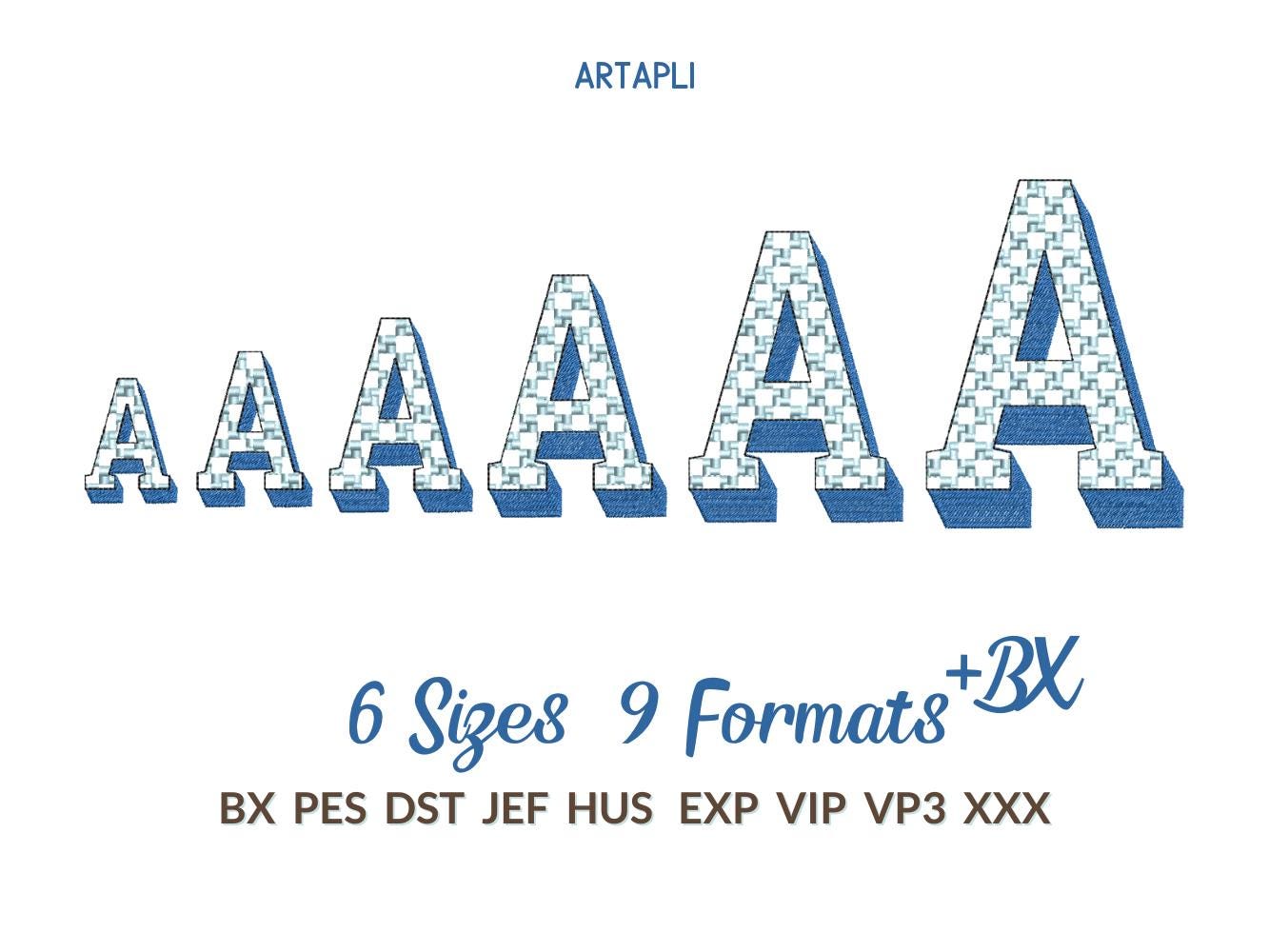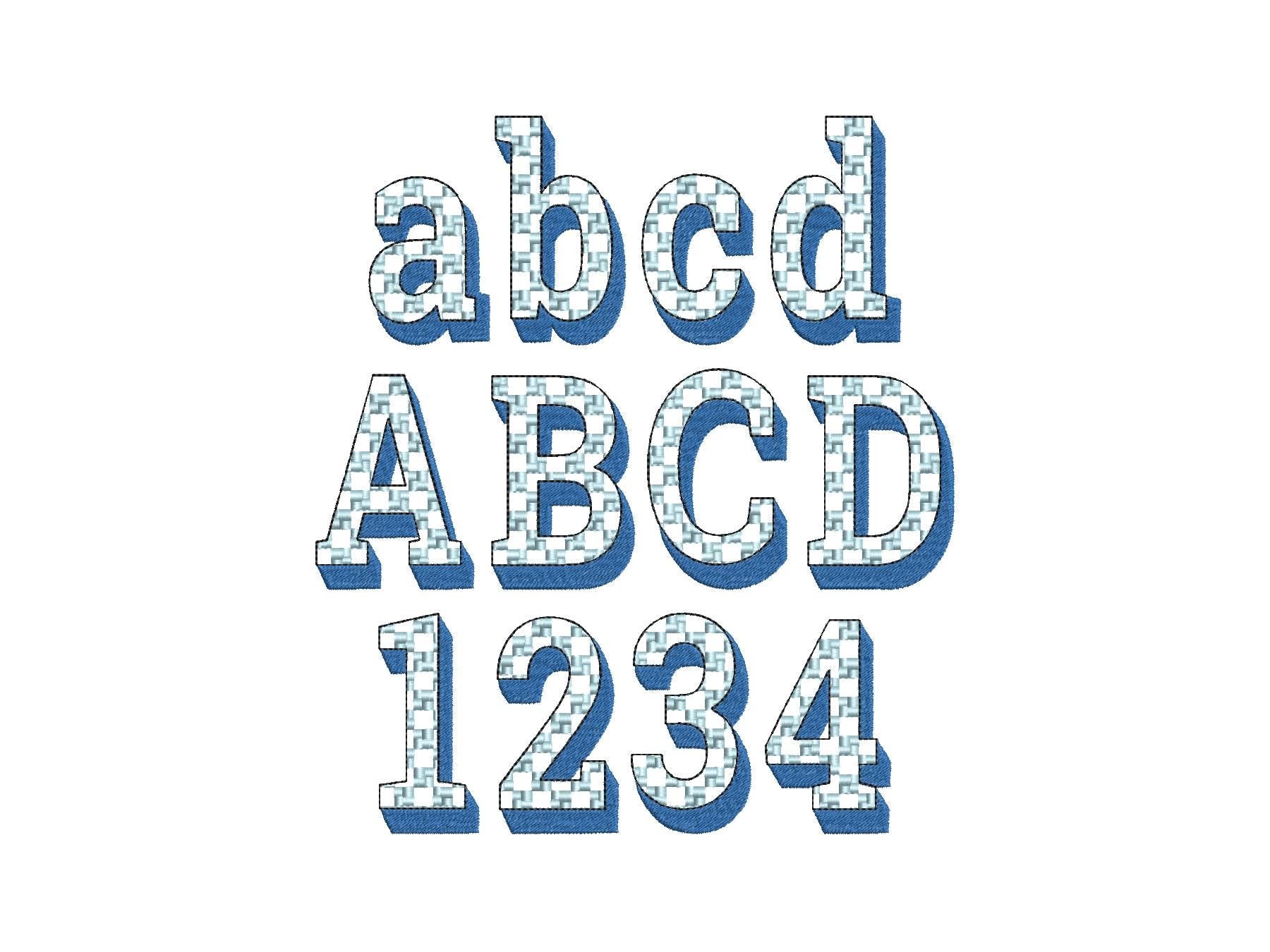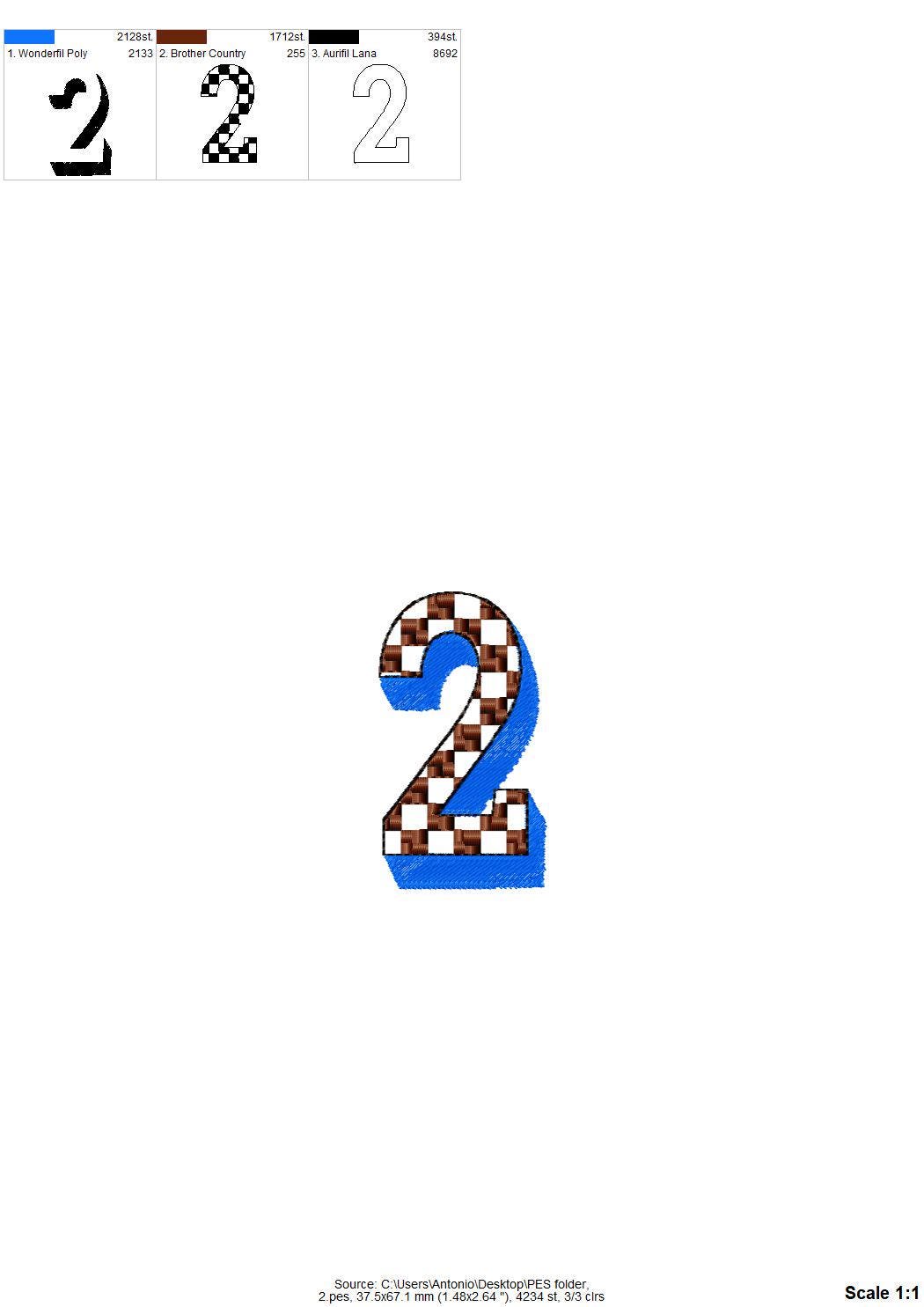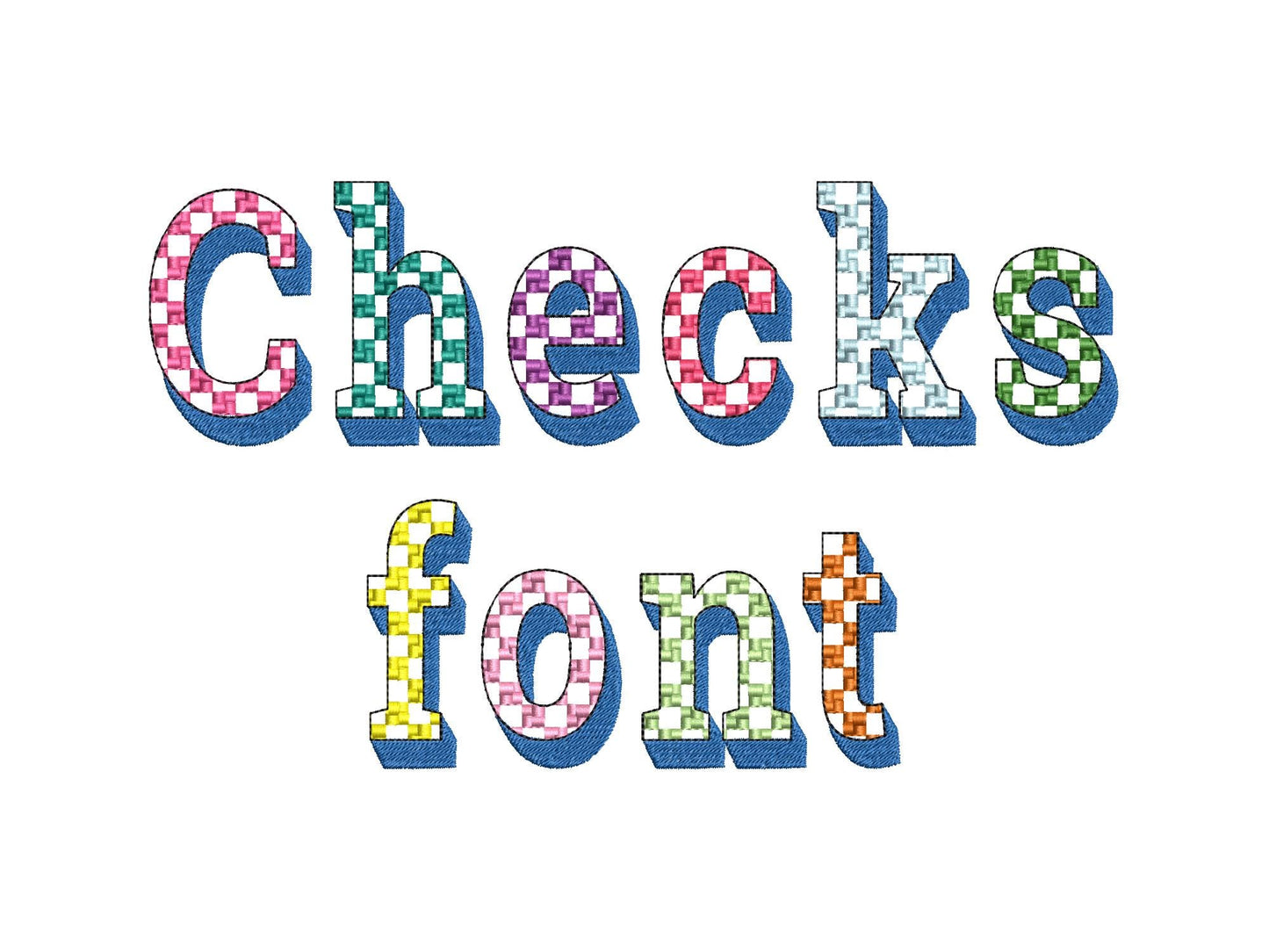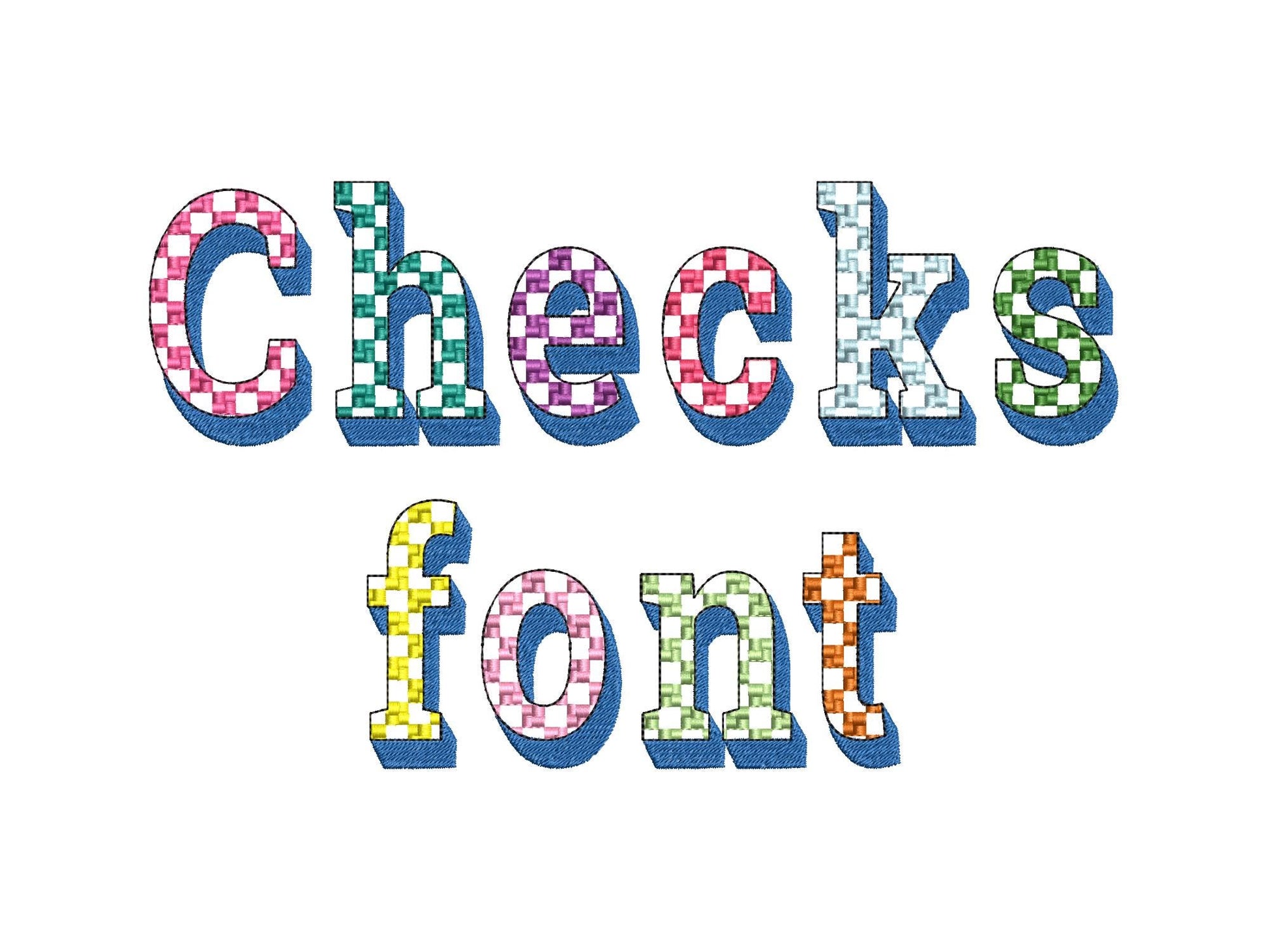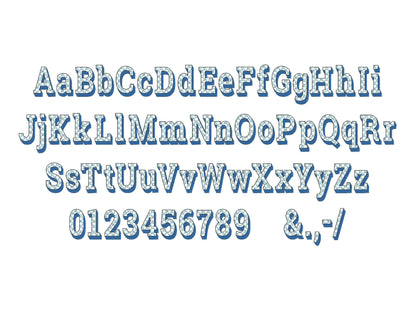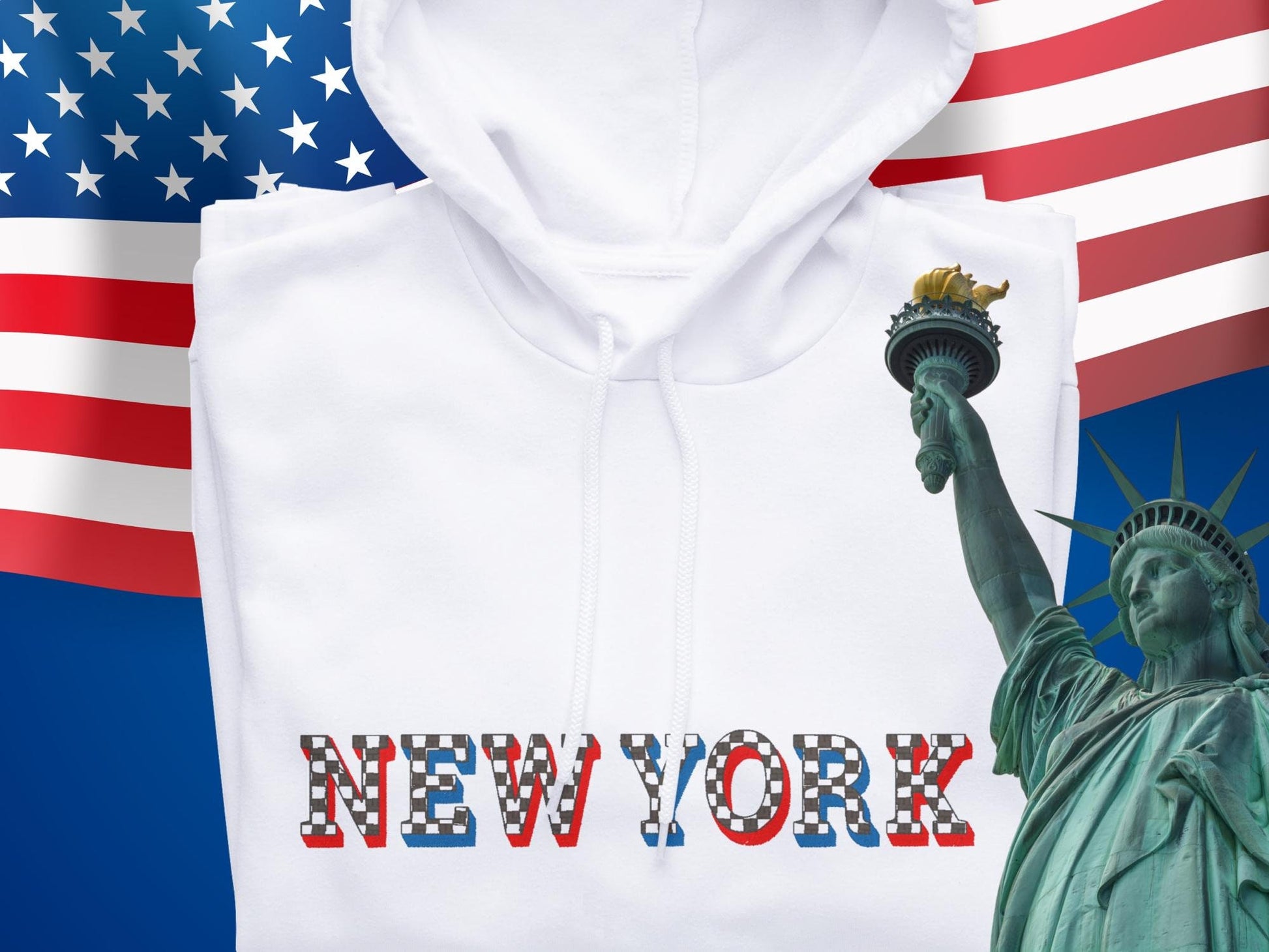
Patterned Retro Shadow Font
Uppercase and lowercase letters, numbers 0 to 9 and punctuation in one size: 4 inches. The checks are part of the stitching and the fabric shows through.
- Retro checked shadow font
- Uppercase, lowercase, numbers 0 to 9, punctuation
- 1 size: 4 in